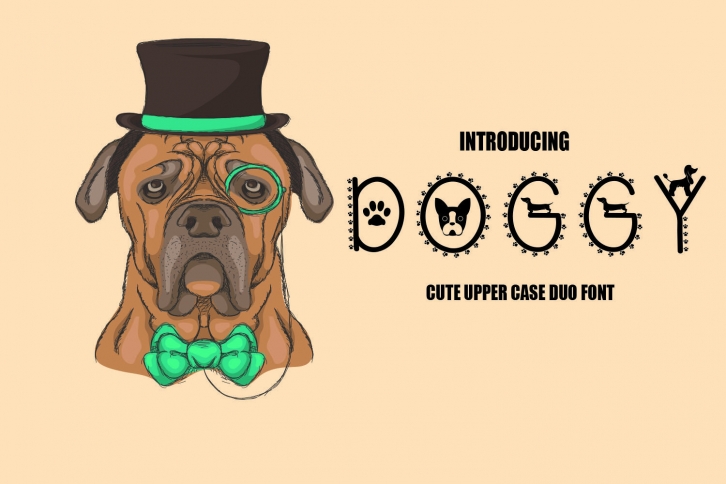
Doggy Font - A Cute upper case duo font Download
Doggy is a trendy and unique font with an authentic style. It was designed by Wowsvgstudio and it's a great choice for creative people who need such a font. It was released on November 23, 2020 and the file size is 17.4 MB. Doggy will add an organic vibe to any design idea!